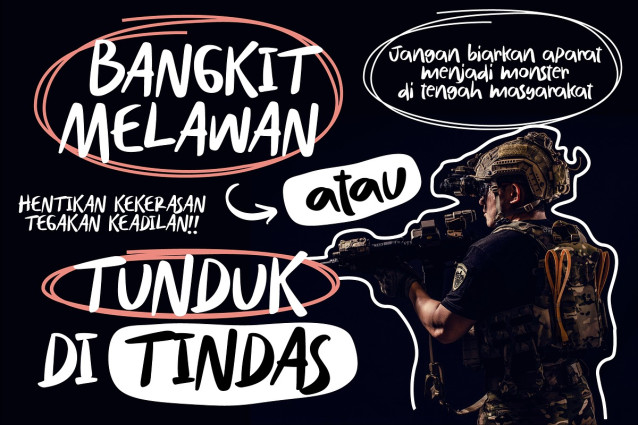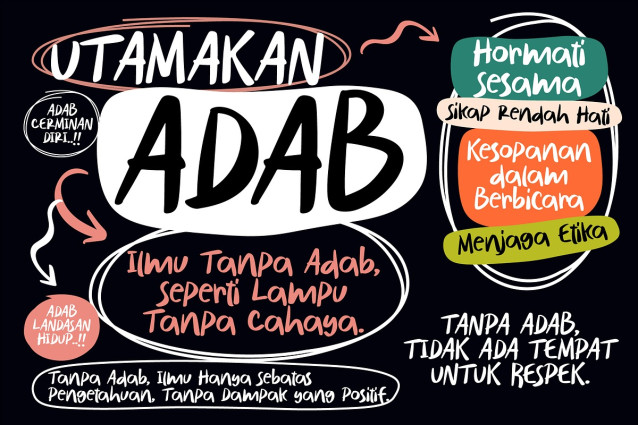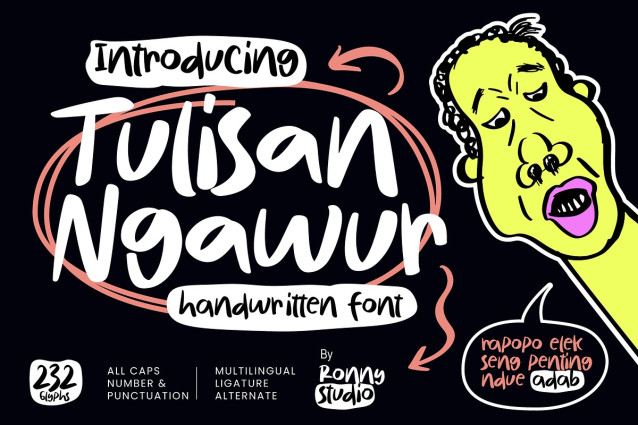
Tulisan Ngawur Font, a playful and quirky handwritten font designed to infuse your creative projects with a fun and casual vibe. With its lively letterforms and organic flow, Tulisan Ngawur is perfect for posters, merchandise, social media content, branding, and any design project that calls for a relaxed and creative touch.
Its handcrafted style adds a personal flair to your typography, making your designs stand out with charm and authenticity.